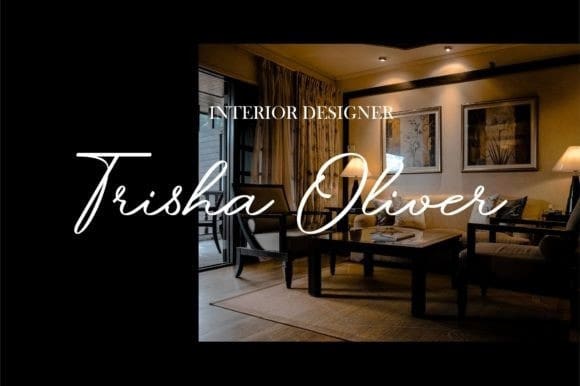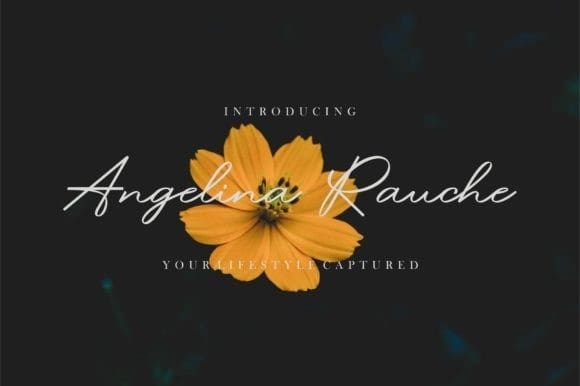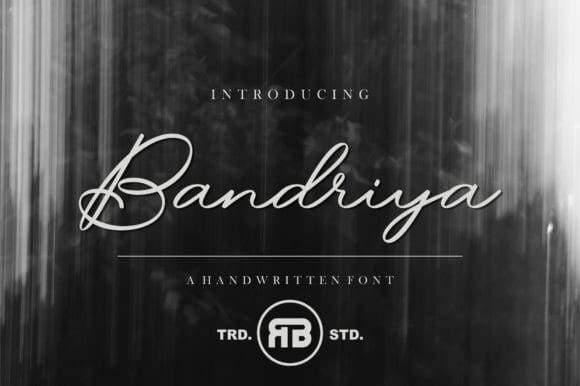
Bandriya Script Font
Bandriya Script Font, is a dazzling script font. This font is neatly crafted and highly detailed. Whatever the topic, this font will be a wonderful asset to your font library, as it has the potential to enhance any creation.